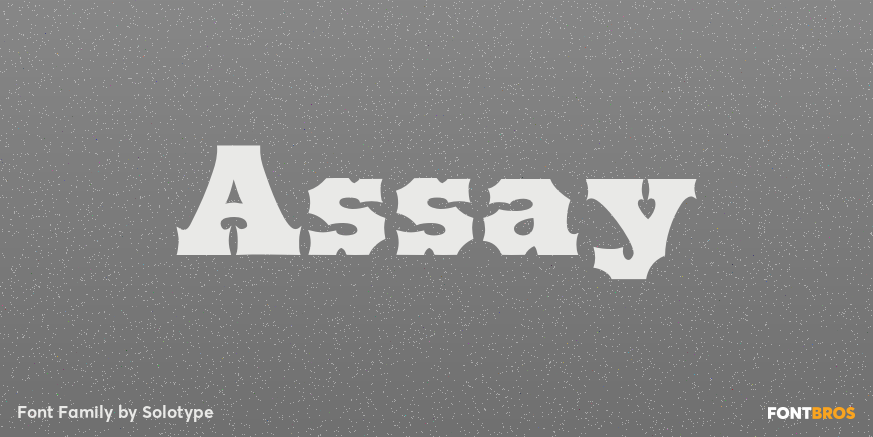
Assay
This is our name for Antique Tuscan, of which there were many variations. This font came from a large lot purchased around 1970 from an east coast newspaper shop. Subsequently, we acquired several more versions of the face, but this one had lowercase…